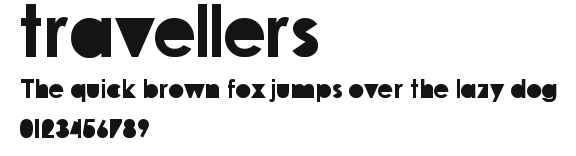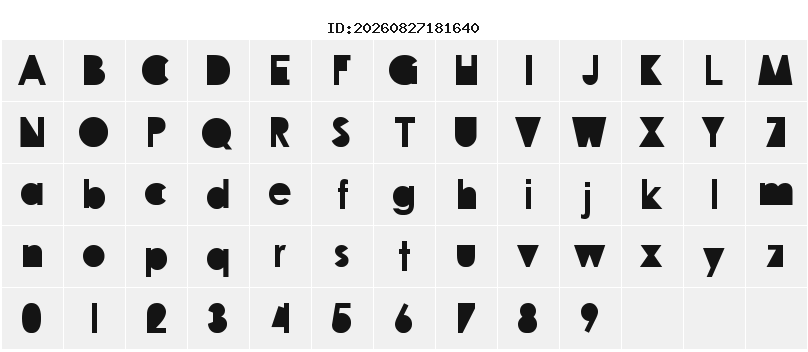
• Font Name: travellers
travellers.ttf is a modern, elegant sans-serif font designed for ultimate readability and visual harmony. Perfect for branding, headlines, web design, and print materials.